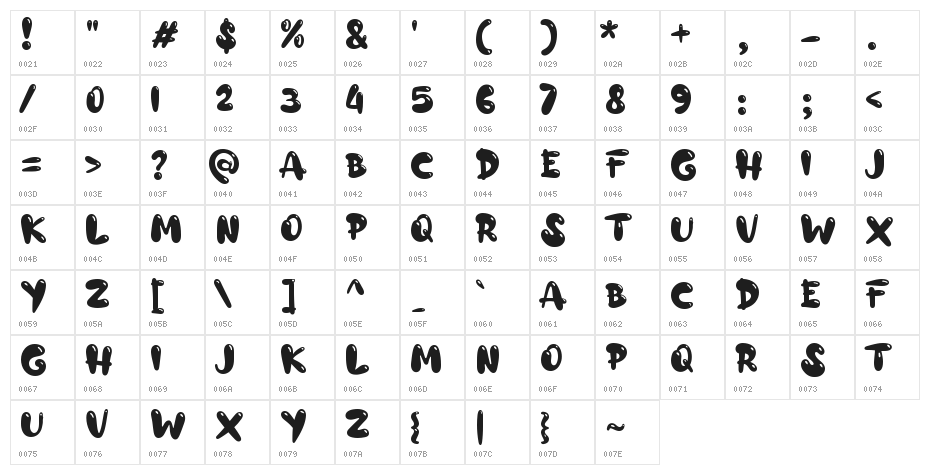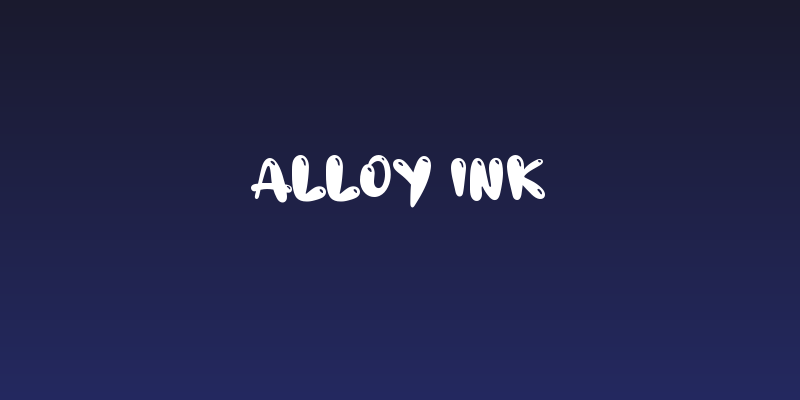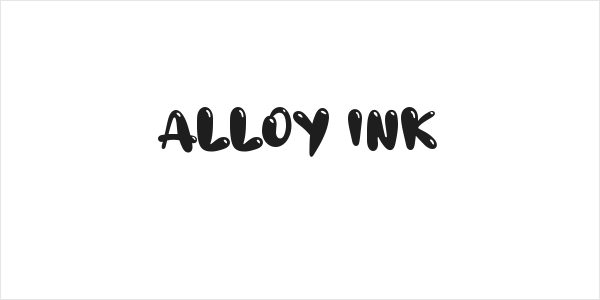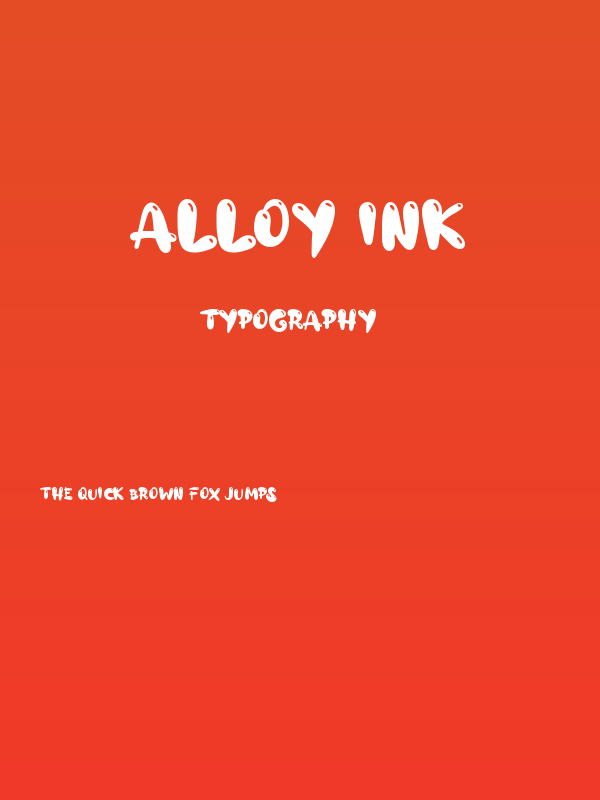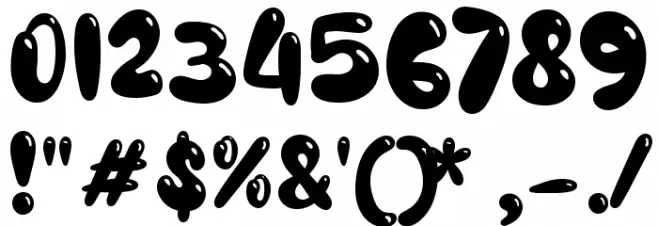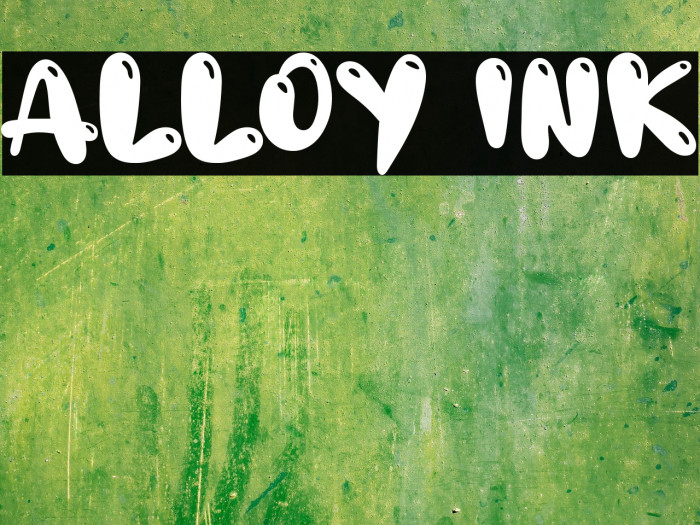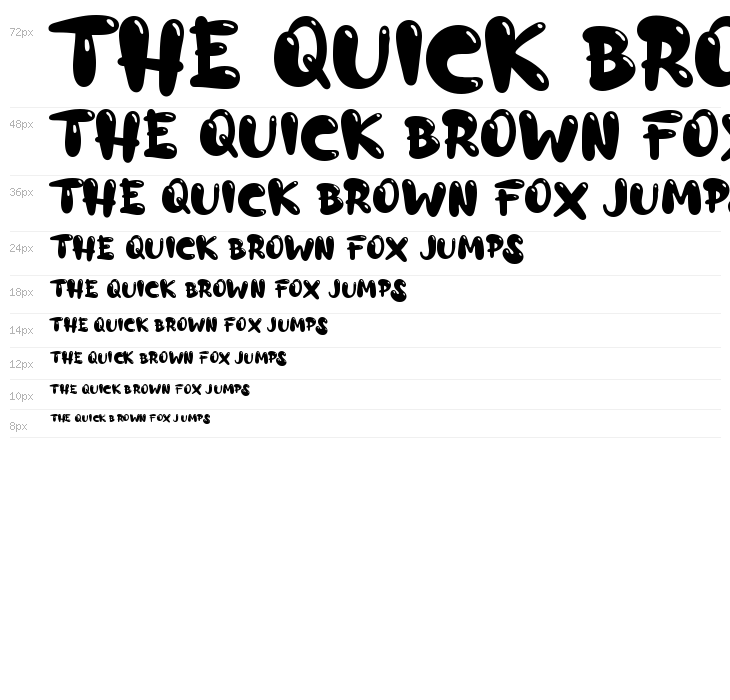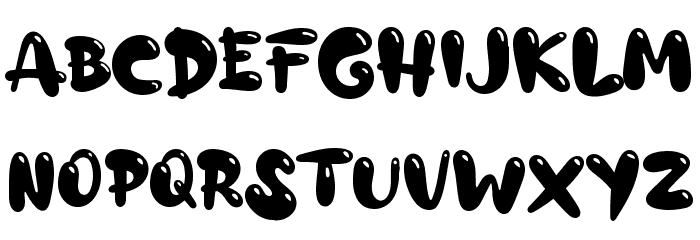
Alloy Ink Font
| Stil general | Playful, Creative, Hand-drawn |
| Proiecte propuse | Ideal for children's books, playful branding, party invitations, and creative posters. |